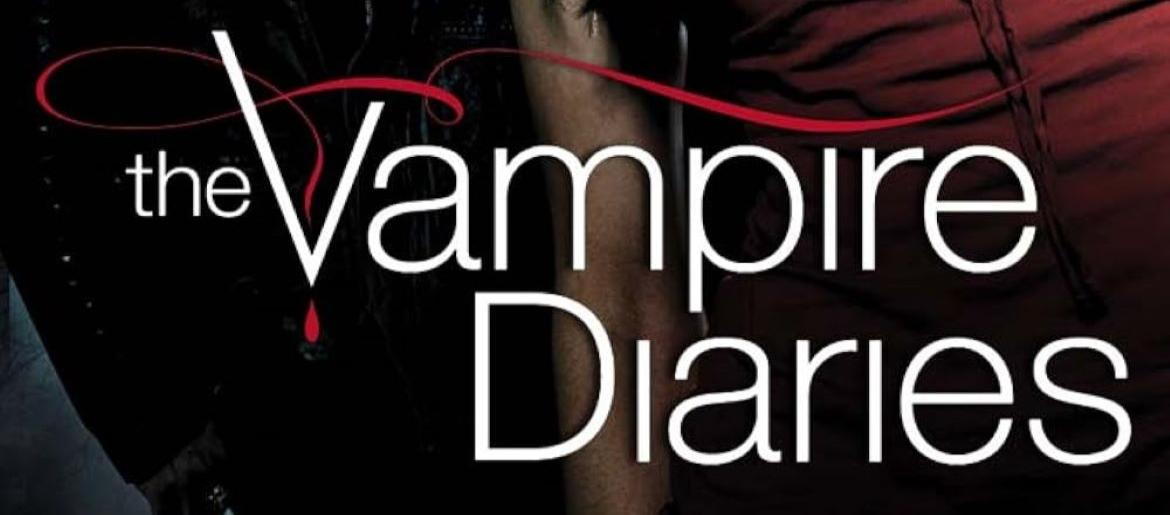
The Vampire Diaries Font
The Vampire Diaries Font radiates a gothic elegance that perfectly suits the series’ mix of romance, suspense, and the supernatural. Built on the clean lines of Helvetica Light, the font combines classical structure with subtle dramatic touches, like the signature red curve hinting at blood, instantly connecting the lettering to the show’s vampire-centered storylines. Its refined, slightly mysterious aesthetic makes it ideal for designs needing a balance of sophistication and dark allure.
The Vampire Diaries is a supernatural drama chronicling the intertwining lives of vampires, humans, and other mystical beings in Mystic Falls. Across its eight seasons, the show blends romance, tension, and intrigue, delivering stories of love, danger, and ancient secrets. The font mirrors this atmosphere—polished yet shadowed, timeless yet thrilling—making it an unforgettable part of the series’ identity and instantly recognizable to fans worldwide.